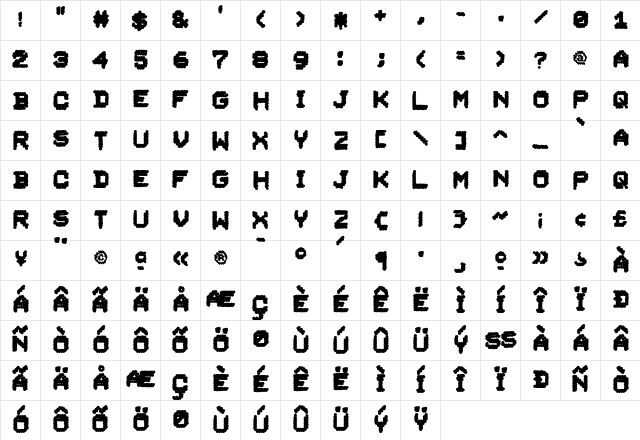
DoomPlatoon Bold Font Preview
DoomPlatoon Bold
DoomPlatoon Bold Font Details
| Foundry | n Hughes . A Device font |
Design Context for DoomPlatoon Typeface
DoomPlatoon takes a measured approach to typography — its balanced proportions and neutral character make it a reliable workhorse for both digital and print work. The heavy weight commands attention and anchors typographic hierarchies.